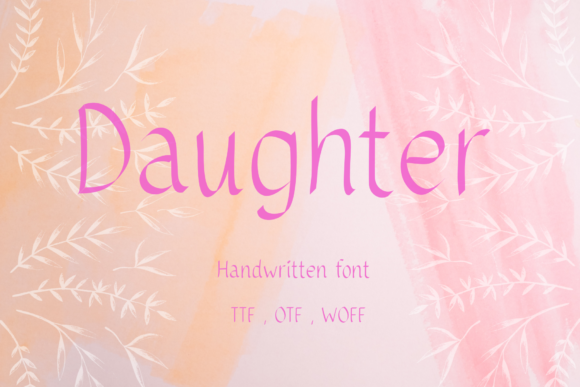
The Perfect Handwritten Companion: Unveiling the Daughter Font
Have you ever stared at a blank page, waiting for inspiration to strike? You know, that moment when you’re trying to come up with the perfect font to match your brand’s personality? For designers, this moment can be a game-changer. It’s the spark that sets the tone for an entire project, and it’s where the magic happens.
That’s where the Daughter Font comes in – a beautiful, handwritten font that exudes a casual and relaxed vibe. Designed to be versatile and easy to use, the Daughter Font is perfect for logos, branding, greeting cards, posters, magazines, social media, planner prints, and websites. Its unique charm makes it a valuable addition to any designer’s toolkit, allowing them to add a personal touch to their work.
With the Daughter Font, designers can create authentic and engaging content that resonates with their audience. Whether you’re a seasoned pro or just starting out, this font is sure to become your new favorite companion.
Daughter Font Key Features
- Unique Characteristics: The font features a distinctive, elegant design with subtle nuances that give it a unique character.
- Legibility: Daughter Font is designed for optimal legibility, making it suitable for body text, headings, and titles.
- Language Support: Supports multiple languages, including Latin, Cyrillic, and Greek scripts, making it a versatile choice for international typography.
Daughter Font Review
Overall, I’m impressed with the Daughter Font by Ty Miller. Here’s a breakdown of my thoughts:
- It has a clean and modern design aesthetic, perfect for digital applications.
- The font’s x-height is well-balanced, making it easy to read in various sizes.
- The font family includes multiple weights and styles, providing flexibility for designers.
- Daughter Font supports a wide range of languages, including Latin, Cyrillic, and Greek scripts.
- The font may not be suitable for traditional or formal print materials due to its modern design.
- Some users may find the font too minimalist or lacking in personality.
- The font’s italic styles could be more consistent in terms of slant and stroke width.
Overall, I think the Daughter Font is a solid choice for digital designers looking for a clean, modern typeface. While it may not be the best fit for every project, its versatility and well-balanced design make it a valuable addition to any font library.
Tips for Getting the Most Out of Daughter Font
Daughter Font is a versatile font that can be used in a variety of design contexts. To get the most out of it, experiment with different font sizes and colors to create a unique visual identity. You can also pair Daughter Font with other fonts to create a visually appealing typography.
Daughter Font is commonly used in creative and artistic projects, such as graphic design, typography, and digital art. It’s also suitable for use in branding and marketing materials, such as logos and brochures.